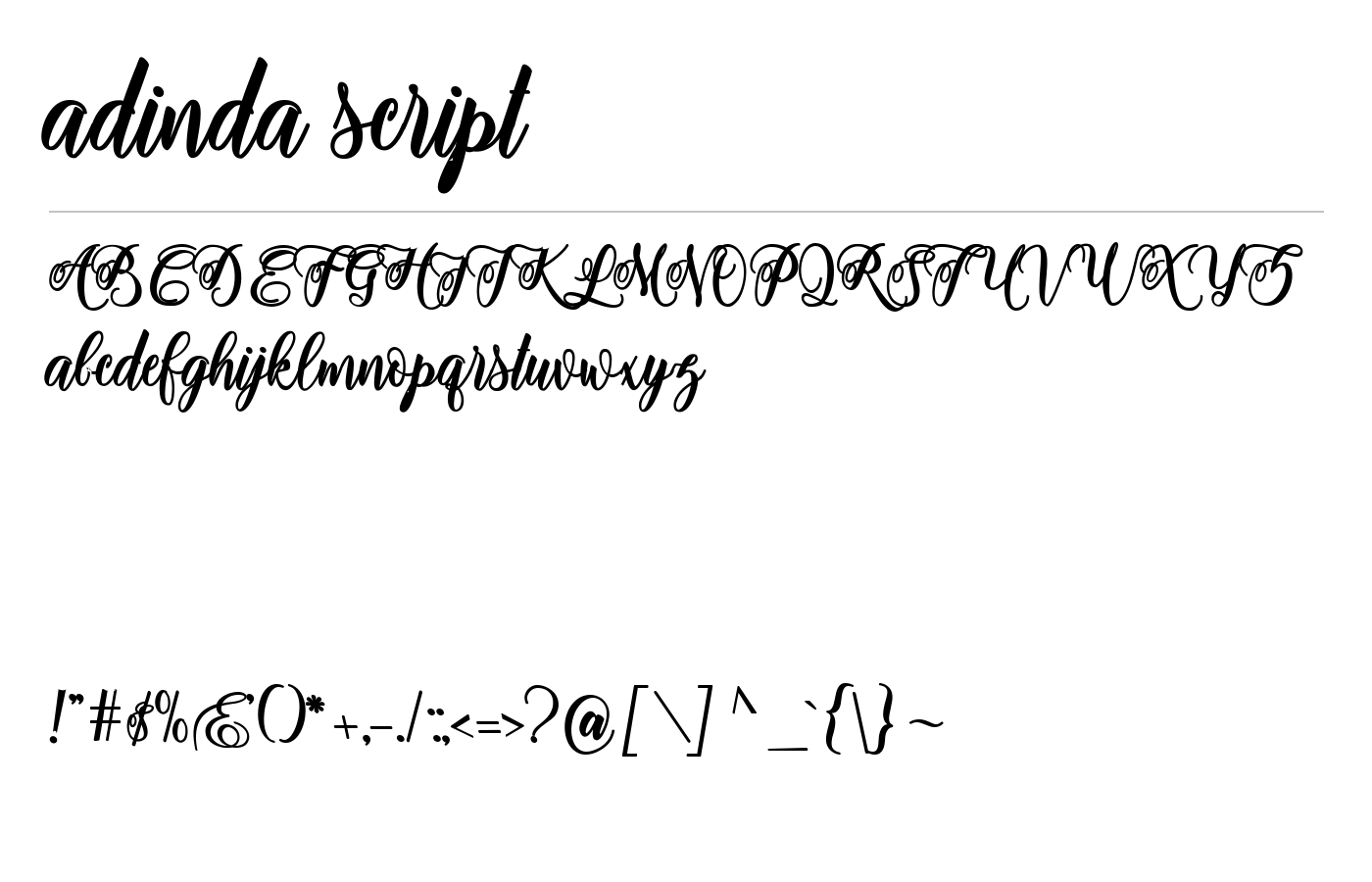
Adinda Script is an elegant, modern script font characterized by smooth, flowing strokes and a moderate weight that strikes a perfect balance between readability and decorative flair. Its playful yet refined style, featuring unique uppercase flourishes and a charming lowercase, makes it ideal for invitations, branding, and packaging that want to convey sophistication with a personal touch. This font shines in projects that need a warm and stylish handwritten feel without sacrificing clarity.
adinda script Font
About adinda script Font